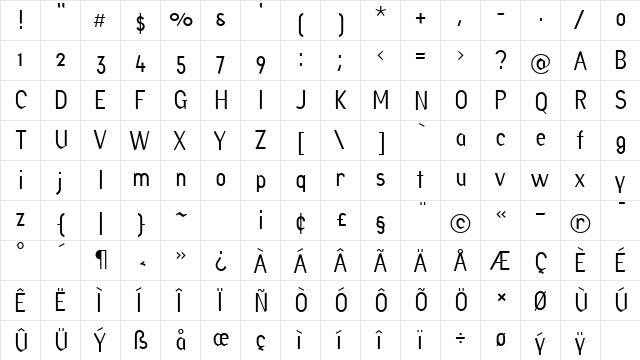
FactoryLight Regular
Design Context for FactoryLight Typeface
FactoryLight offers clean, dependable letterforms without strong stylistic allegiance, making it a practical choice for designers who need flexibility. Its slender proportions lend an understated elegance to any composition.
Pro Tip: Pair FactoryLight with a font of contrasting weight or personality to build a more expressive typographic hierarchy.